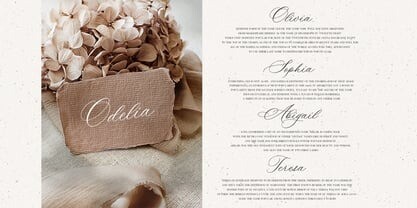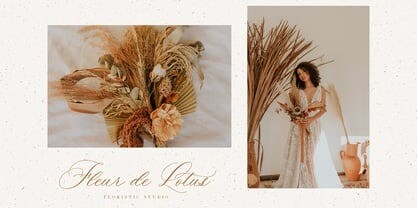
Ms Claudy Font
Ms. Claudy Font is an elegant modern calligraphy font that will look awesome on wedding and event stationery, logos and branding materials, cards and so on.
Ms Claudy includes full set of Uppercase and Lowercase Basic Characters, Numerals and Punctuation. Also it contains ligatures and a lot of stylistic alternates to perfectly re-create natural calligraphy (check the previews in order to see them all).